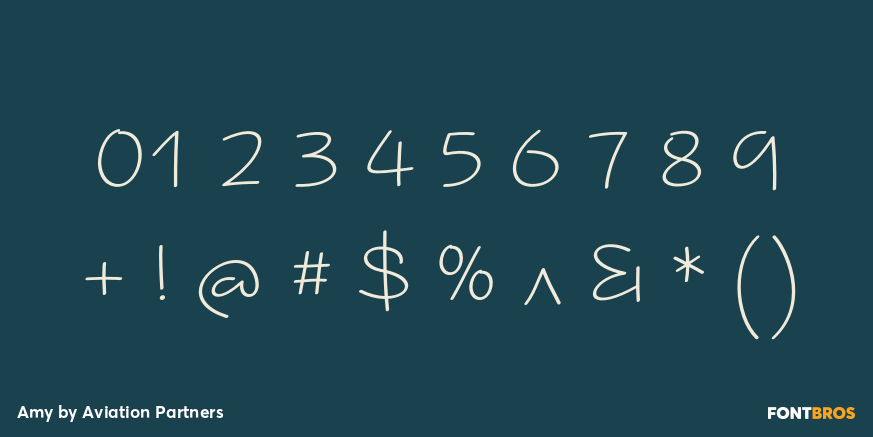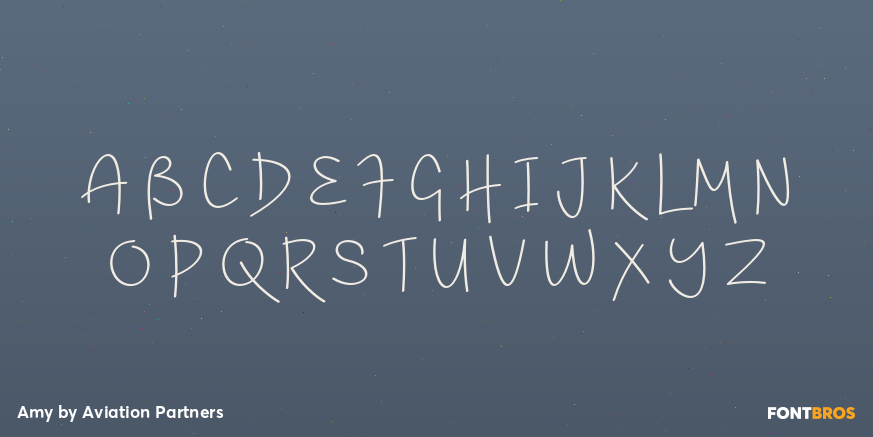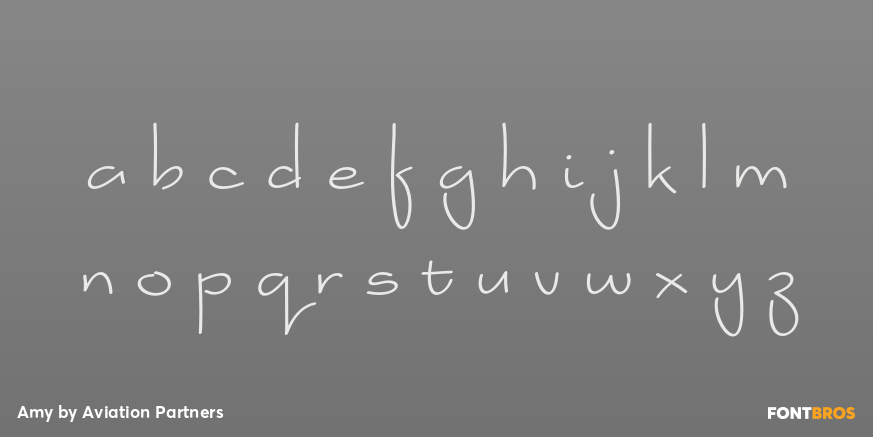
Amy
Font Family by Aviation Partners
Developed from the simplest possible curves, Amy is a wide hand lettered style with tall straight ascenders and generously looped descenders. The capitals are centred horizontally with the lower case. A handful of ligatures helps copy to flow for easy reading and optional proportionally spaced numerals make the font suitable for quite lengthy chunks of copy.